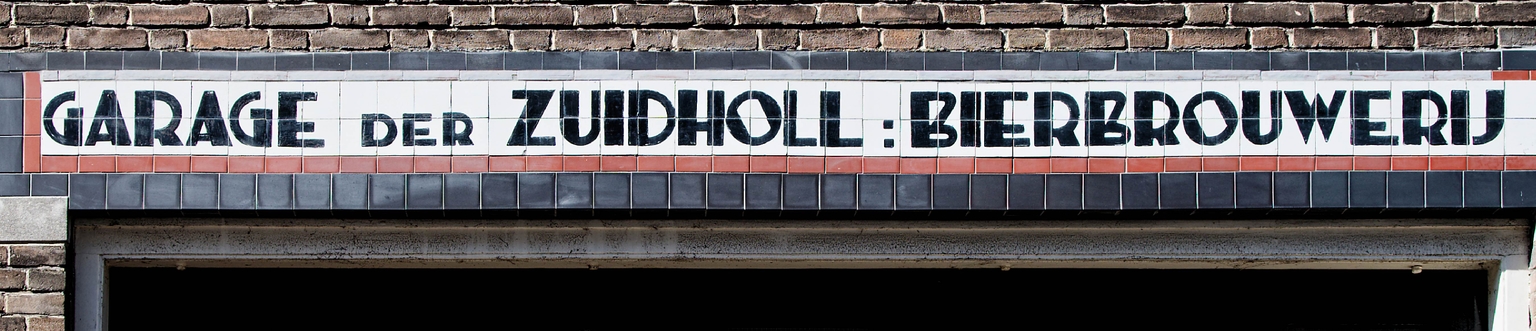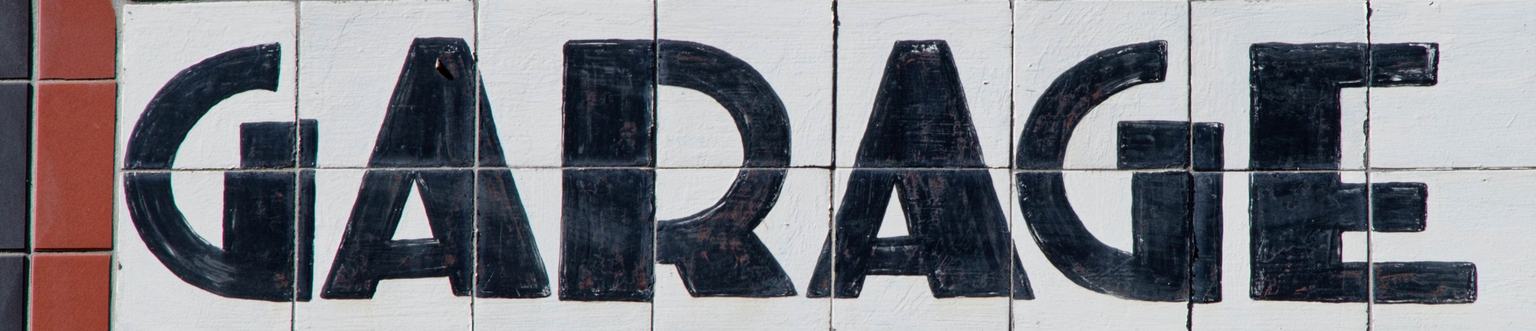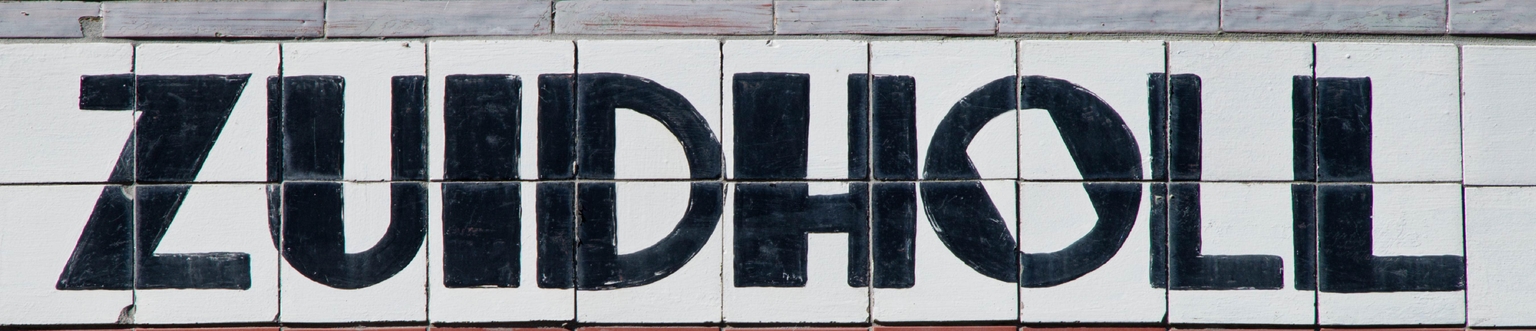
Zuidholl
Zuidholl is a display typeface designed by Ramiro Espinoza and inspired by the expressive Deco-style lettering on the façade of the former Garage der Zuidholl Bierbrouwerij, located at Spaarnwouderstraat 15 in Haarlem. Situated in the rear yard of the former brewery De Olifant, the building—with an upstairs apartment—was constructed for the Zuid-Hollandsche Bierbrouwerij of The Hague and, from 1900 onward, also included the forecourt at Korte Spaarne.
The original lettering reflects the craftsmanship typical of early twentieth-century commercial signage. Espinoza adapted these forms into a digital typeface that preserves their decorative expressiveness while improving consistency and expanding the character set. Zuidholl is well suited for logos, posters, packaging, signage, websites, and editorial projects that aim to evoke the visual atmosphere of European Art Deco with a practical, contemporary touch.